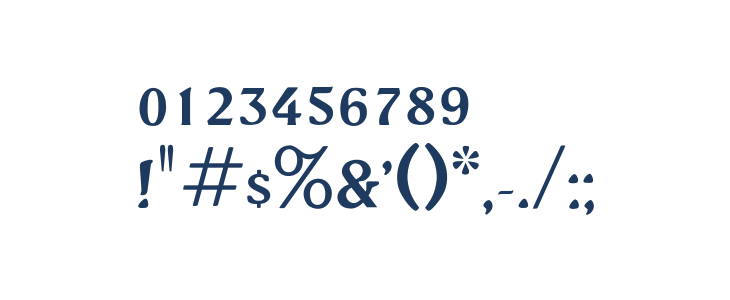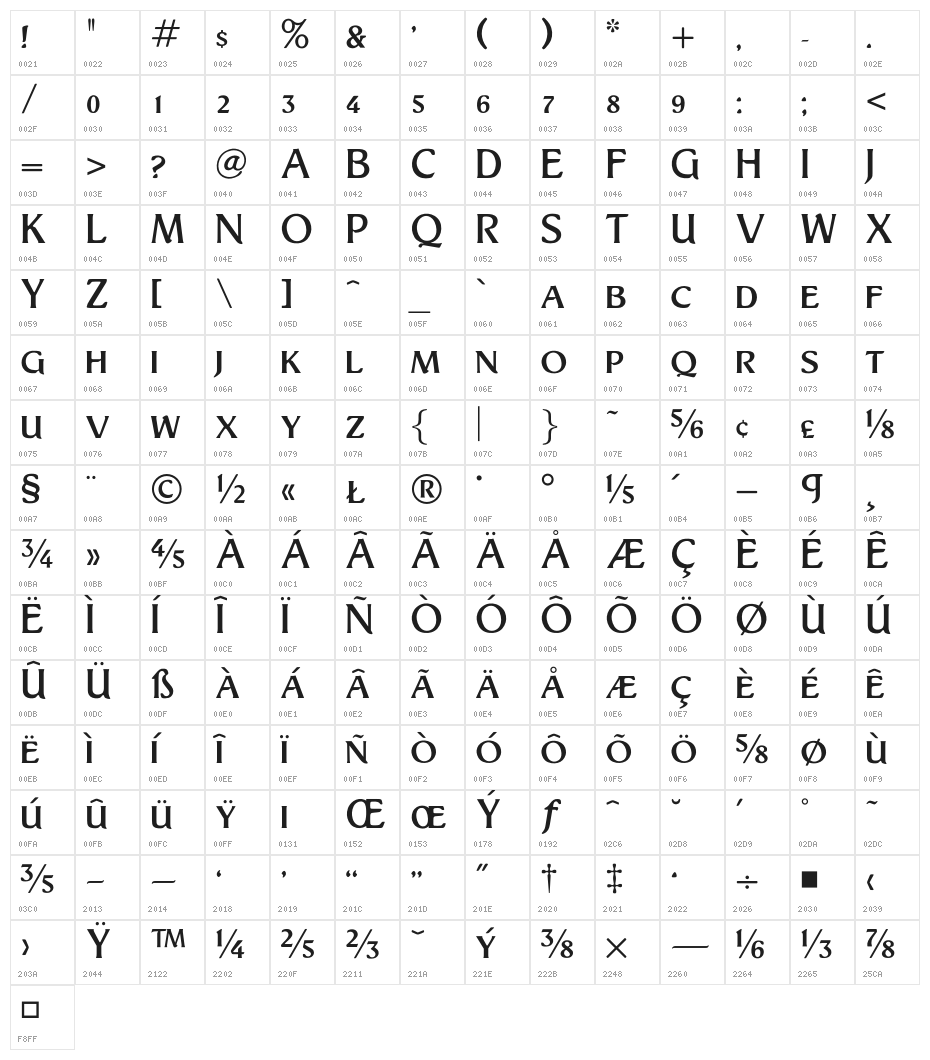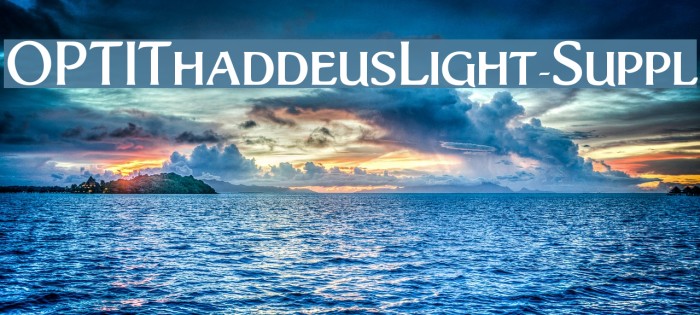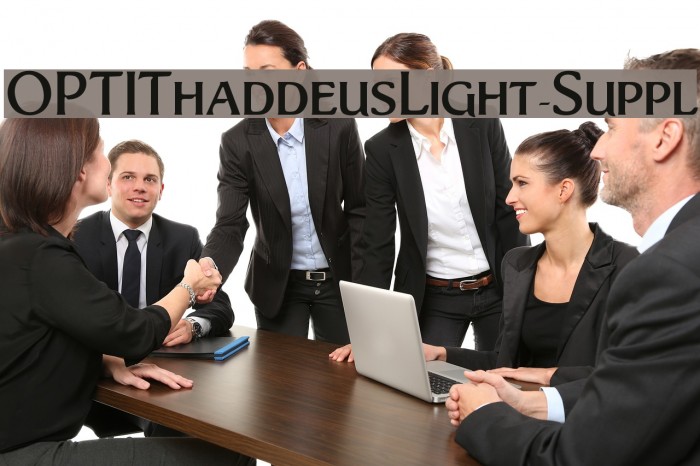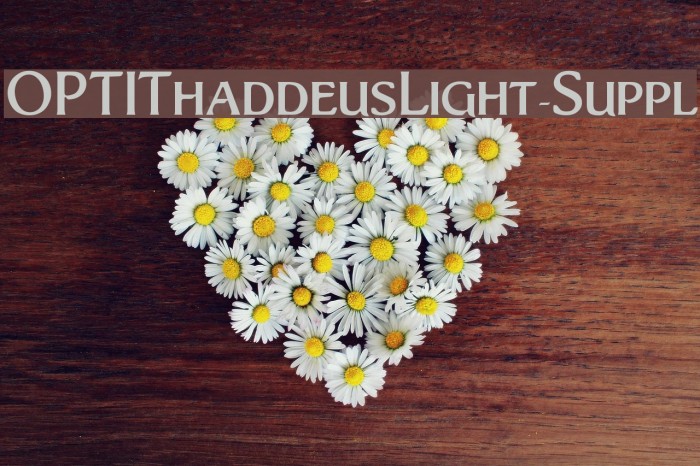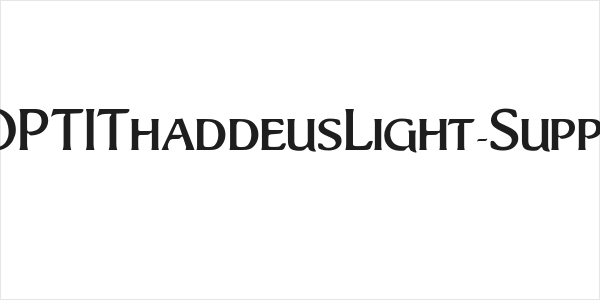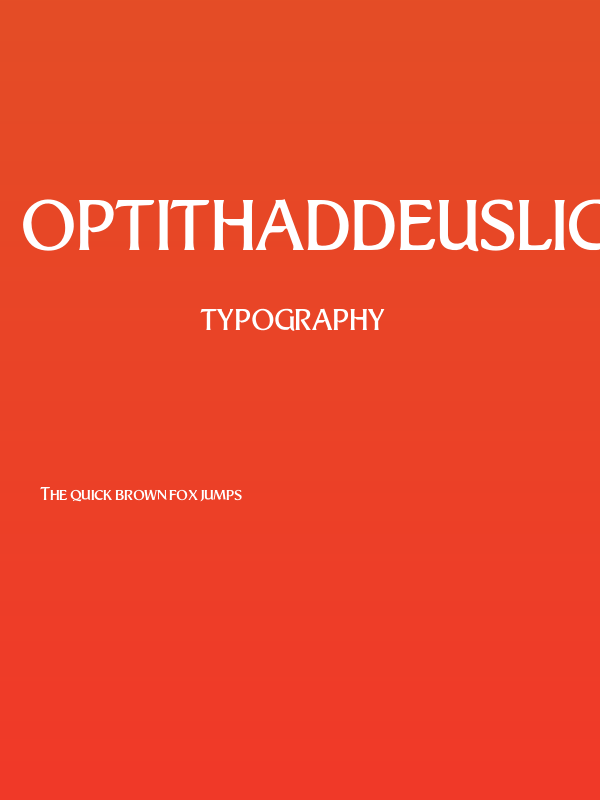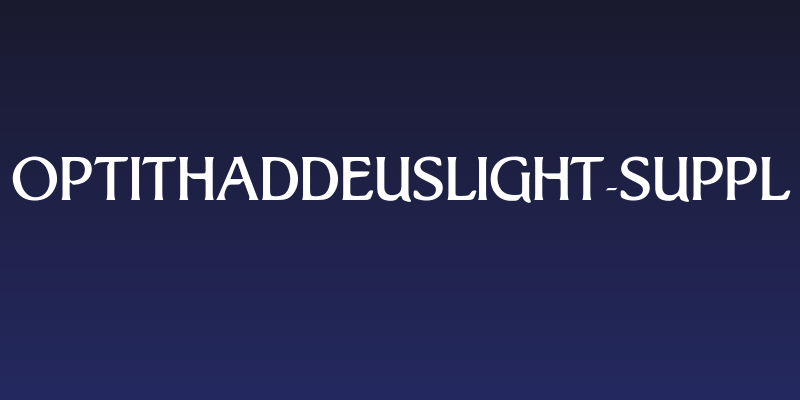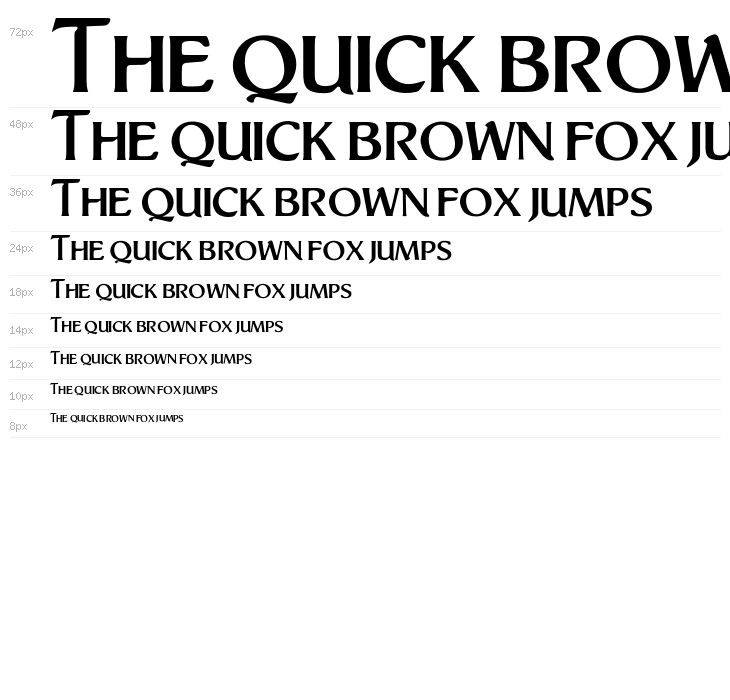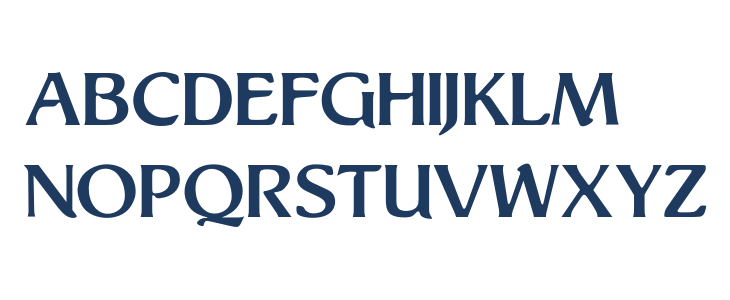
OPTIThaddeusLight-Suppl Font
OPTIThaddeusLight-Suppl Description
This font features a distinctive and elegant style, characterized by its sharp serifs and slightly curved strokes. The uppercase letters exhibit a classic and formal appearance, while the lowercase letters maintain a consistent and harmonious flow. The numerals are clear and legible, with a traditional design that complements the overall aesthetic. Special characters are thoughtfully crafted, ensuring versatility and readability across various applications. The font's design is both timeless and sophisticated, making it suitable for a wide range of uses.